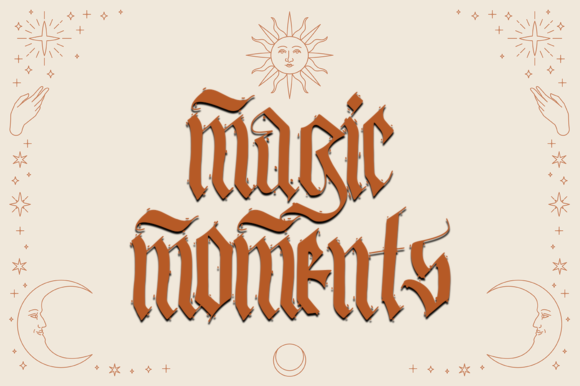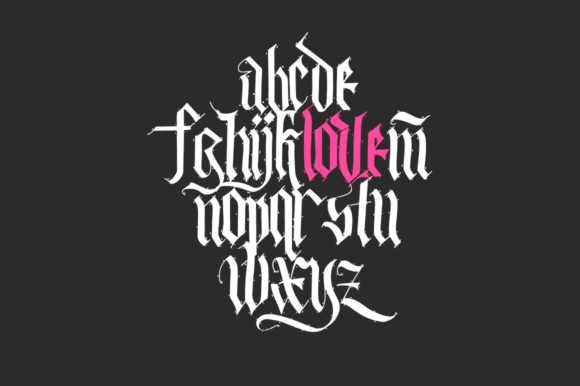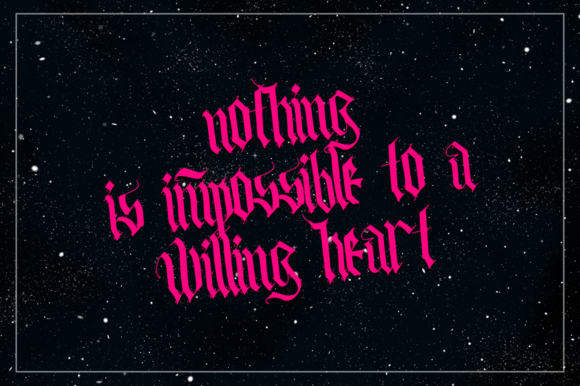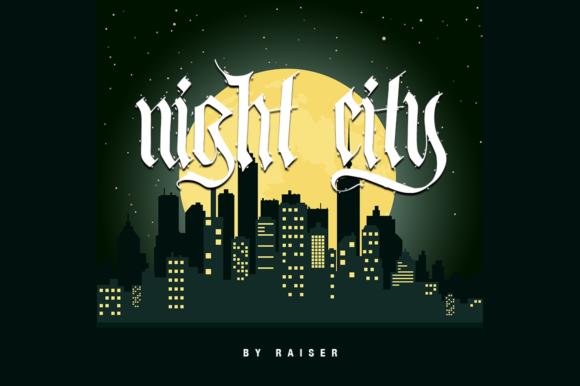
Simplesly Font
About Simplesly Font
Simplesly is a highly detailed and distinct blackletter font. It maintains its classy calligraphic influences while feeling contemporary and fresh. Fall in love with it and bring your projects to the highest levels!